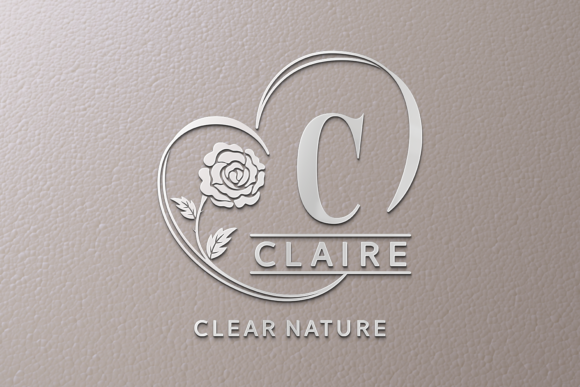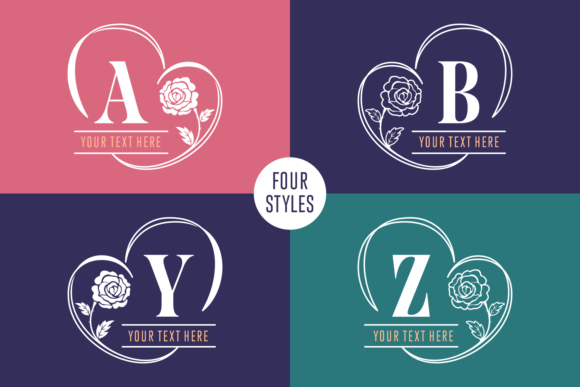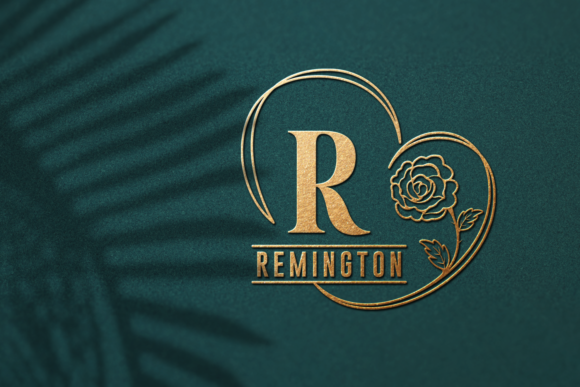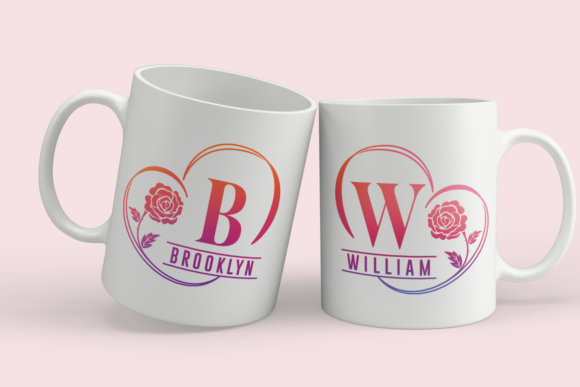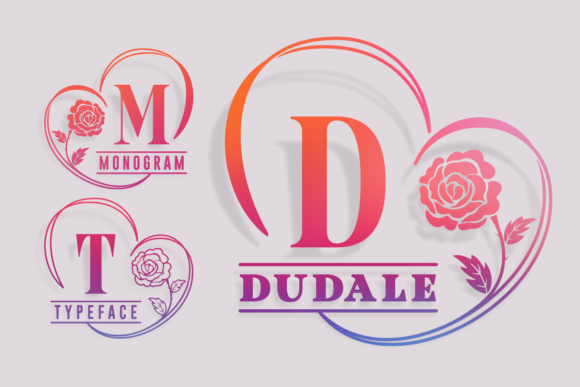
Introducing Dudale Font: Elevate Your Designs with Elegance and Versatility
In the world of typography, fonts play a crucial role in bringing designs to life. Among the myriad of fonts available, Dudale Font stands out for its distinct, beautiful, and exquisite decorative style. This stunning font is not just a visual treat but also a versatile tool for designers and crafters looking to add a touch of elegance to their projects. In this article, we’ll dive deep into the features of Dudale Font, exploring its benefits, uses, and what makes it a must-have in your design arsenal.
What is Dudale Font?
Dudale Font is a decorative font that boasts an incredibly versatile style, making it perfect for a wide range of design projects. Whether you’re working on a logo, a greeting card, a website, or any other creative endeavor, Dudale is designed to impress. Its unique and elegant appearance ensures that your designs stand out from the crowd, capturing the attention of your audience.
One of the standout features of Dudale Font is its PUA (Private Use Area) encoding. This means that you can access all of the glyphs and swashes with ease, allowing for greater flexibility and creativity in your designs. PUA encoding ensures that you can make the most out of Dudale, experimenting with different combinations to achieve the perfect look for your project.
Key Features of Dudale Font
- Distinct and Elegant Style: Dudale’s unique decorative style adds a touch of sophistication to any design.
- Versatility: Suitable for a wide range of projects, from digital designs to print materials.
- PUA Encoded: Easy access to all glyphs and swashes for enhanced creativity.
- User-Friendly: Designed to be accessible and easy to use, even for those new to decorative fonts.
Uses of Dudale Font
Dudale’s versatility makes it an excellent choice for various design projects, including:
- Logos and Branding: Create a lasting impression with a unique and elegant logo.
- Greeting Cards and Invitations: Add a touch of class to your cards and invitations.
- Web Design: Enhance your website’s aesthetic appeal with Dudale’s decorative style.
- Social Media Graphics: Stand out on social media with eye-catching graphics.
- Packaging: Elevate your product packaging with Dudale’s elegant and distinctive look.
Tips for Using Dudale Font Effectively
To make the most out of Dudale Font, consider the following tips:
- Experiment with Swashes: Use Dudale’s swashes to add flair to your designs.
- Combine with Other Fonts: Pair Dudale with complementary fonts for a unique look.
- Play with Sizes: Experiment with different font sizes to create visual hierarchy.
- Consider Your Audience: Ensure that Dudale’s style aligns with your project’s tone and audience.
Dudale Font is a game-changer for designers and crafters seeking to infuse their projects with elegance and versatility. Its distinct decorative style, combined with PUA encoding for easy access to glyphs and swashes, makes it an invaluable tool in your design toolkit. Whether you’re a seasoned professional or just starting out, Dudale is sure to inspire your creativity and help you create spectacular designs that leave a lasting impression.